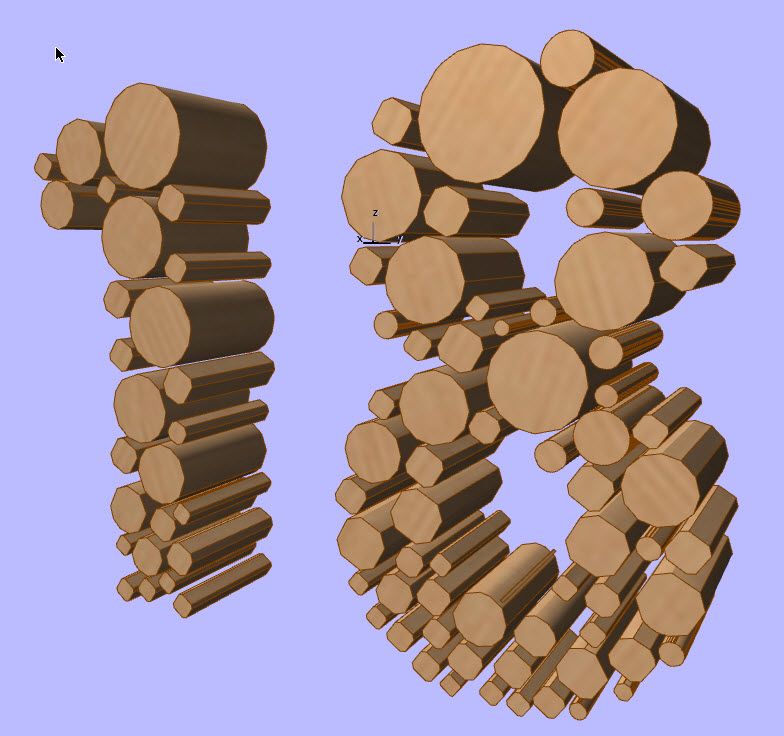
What can I do to make my 3d fonts smoother ?
Is there anything I can do to smooth the curves of a 3d font ?
I want to convert it into a morph and use it as an SEO to cut a pattern in to something.
The font is called Bubbles rising. I need all of the bubbles to be rounder. in the regular font the bubbles are all very round but not perfectly round.
Have you tried increasing the Resolution under Parameters > 3D Representation > Resolution?
No. I couldn't seem to find it at the time.